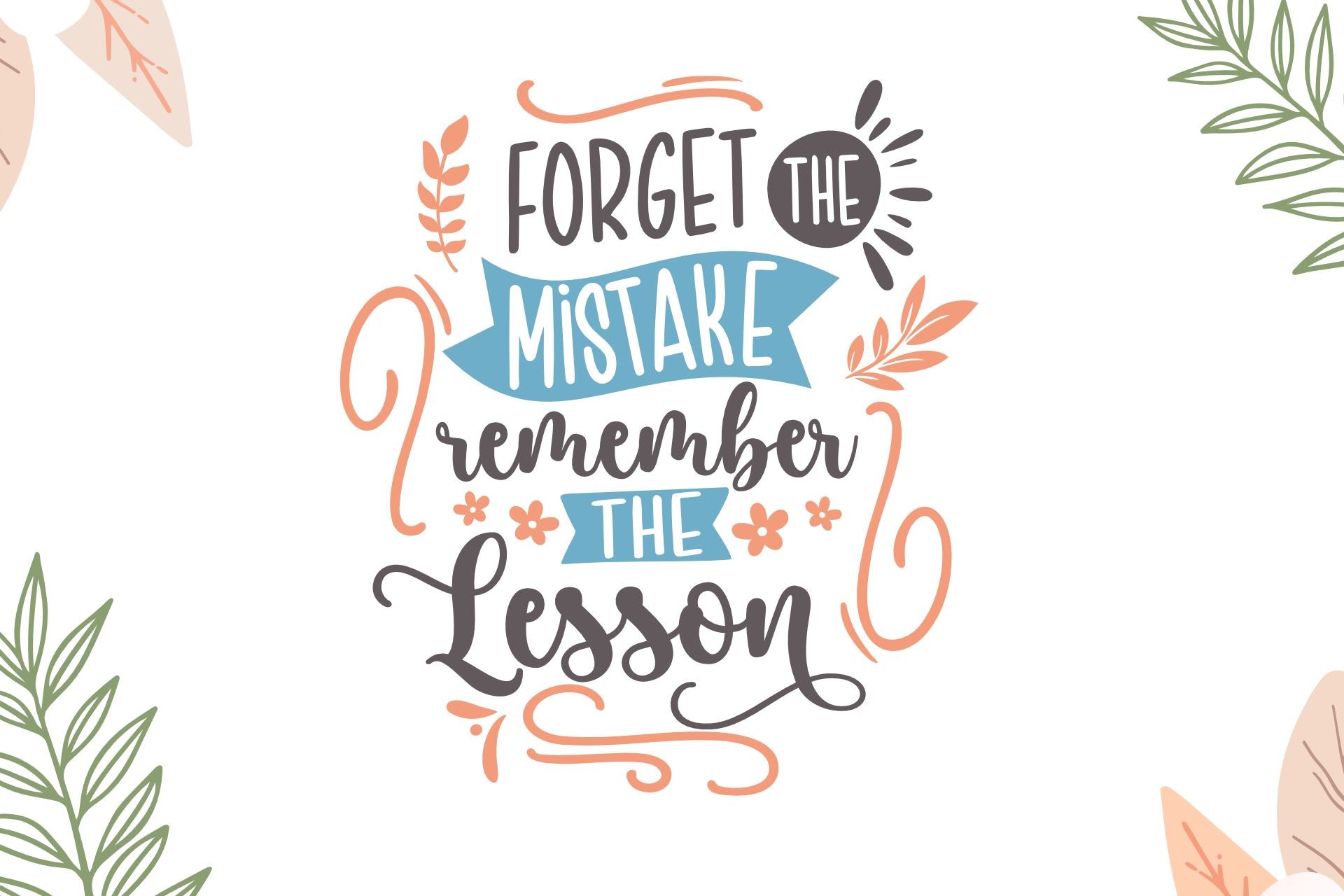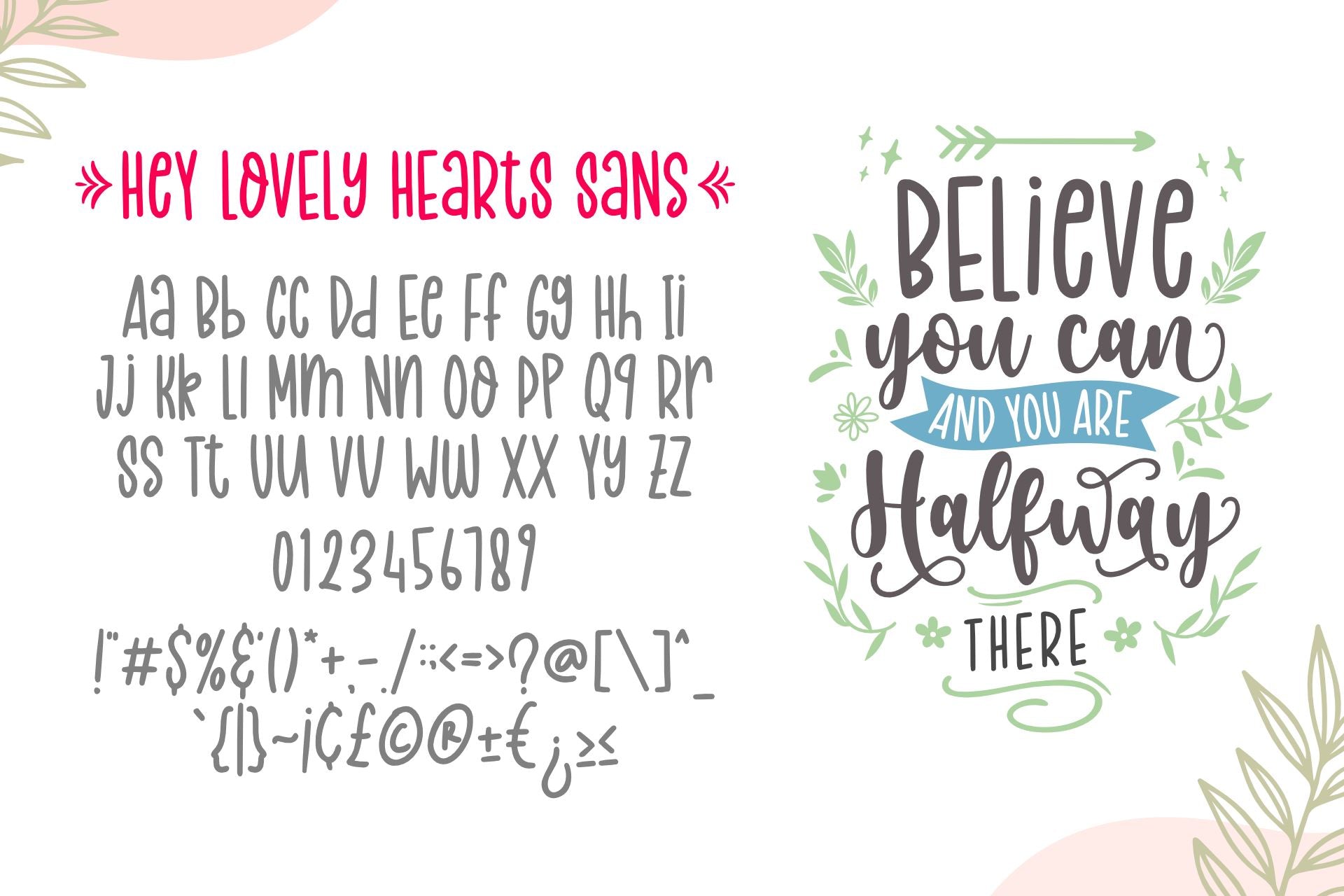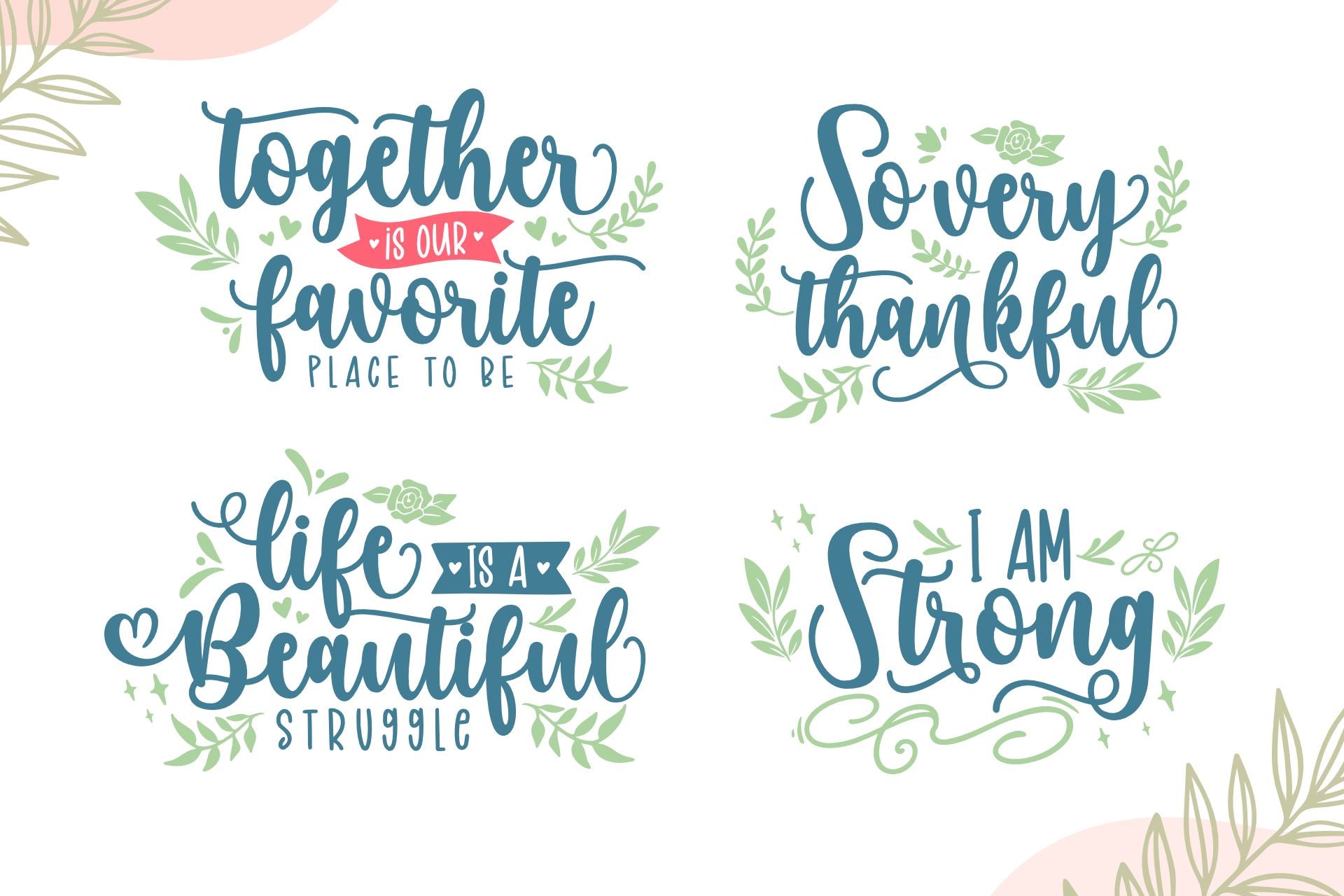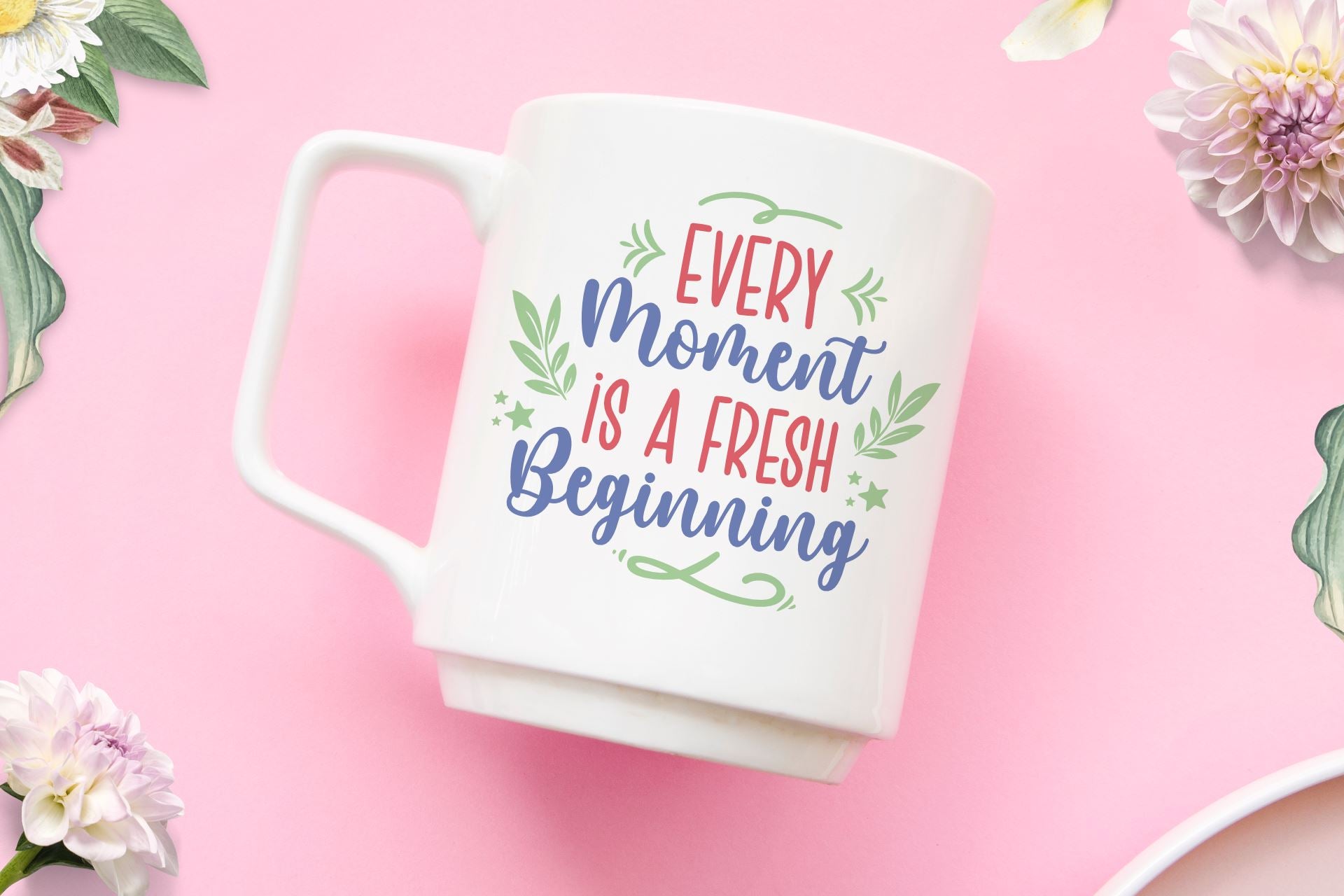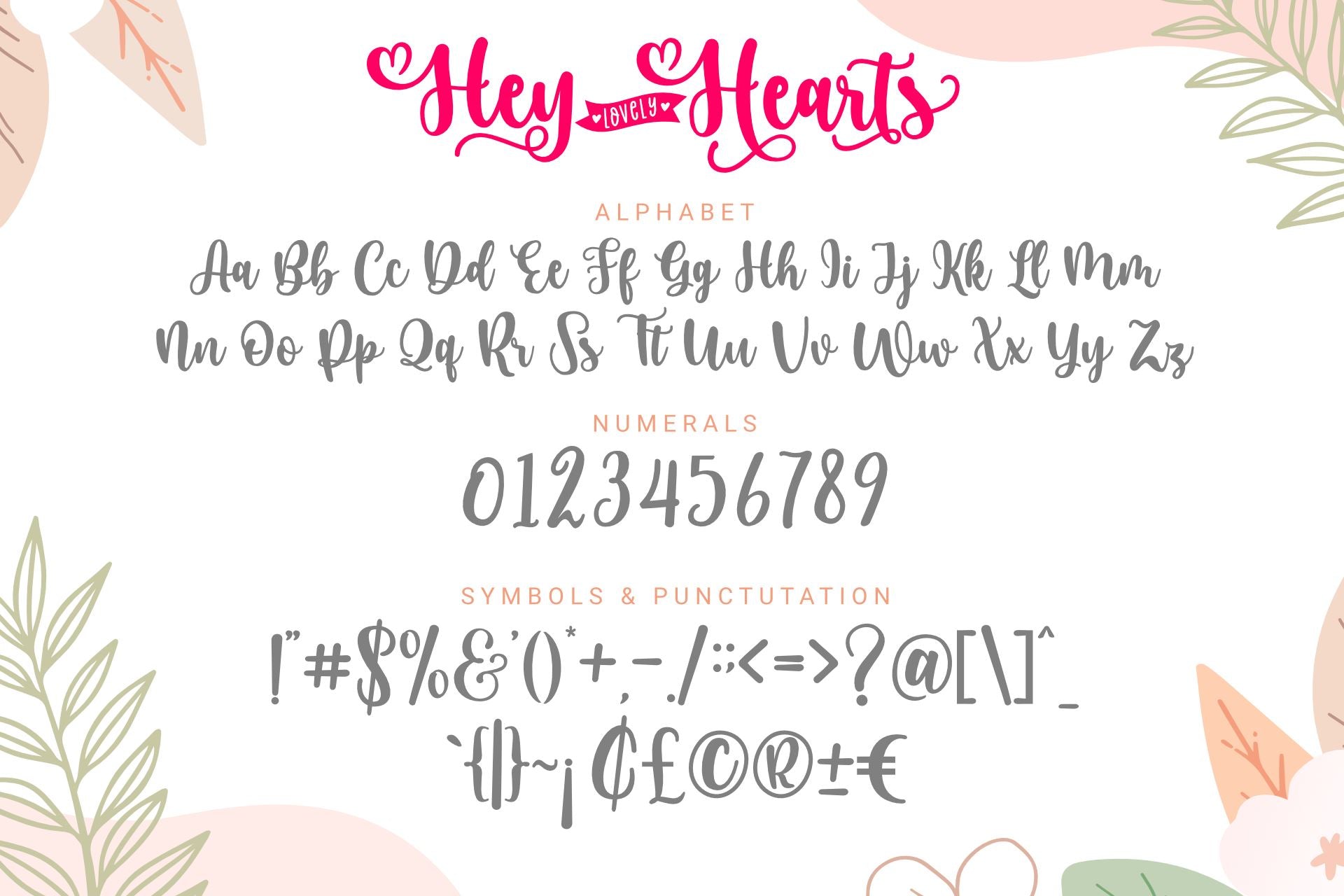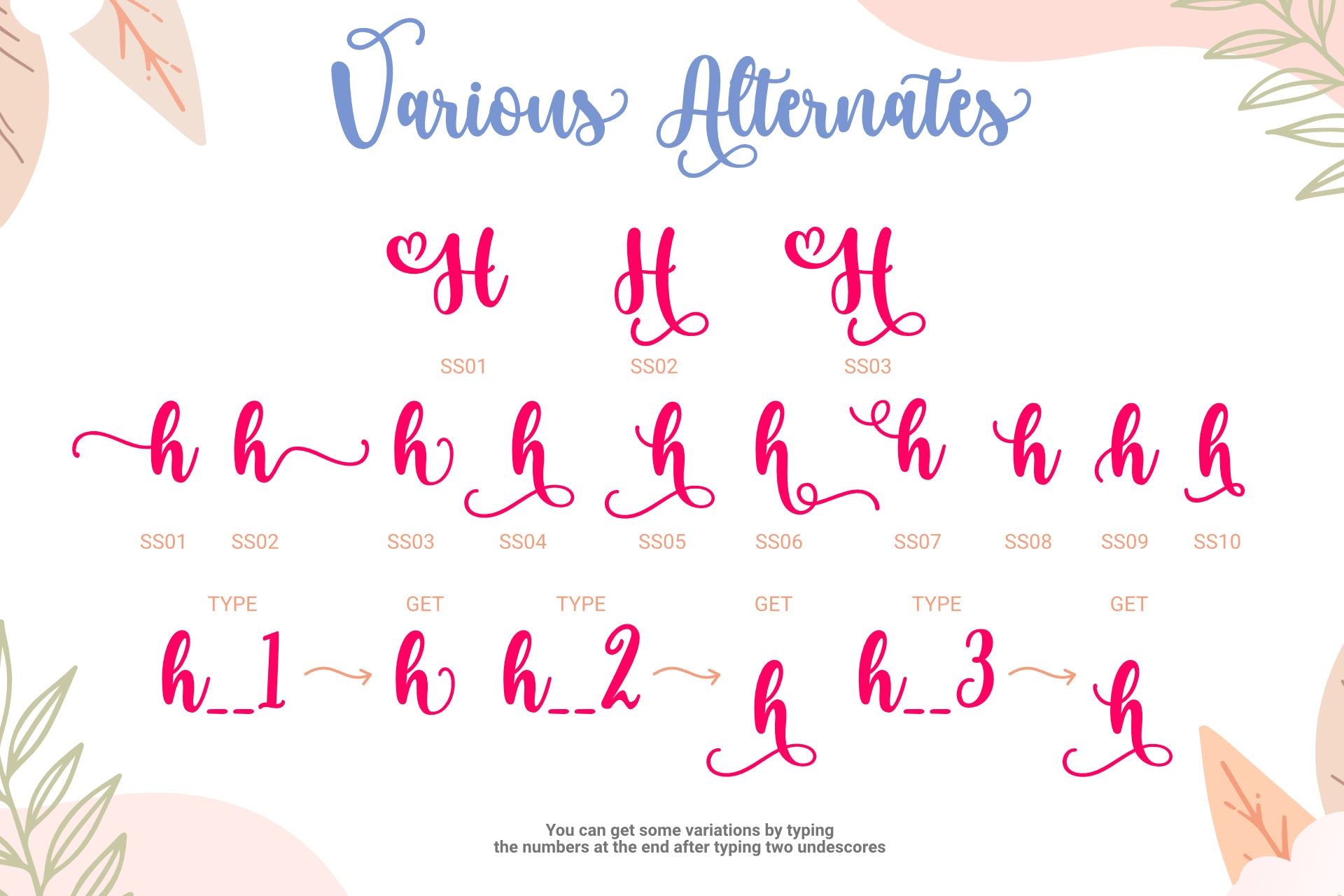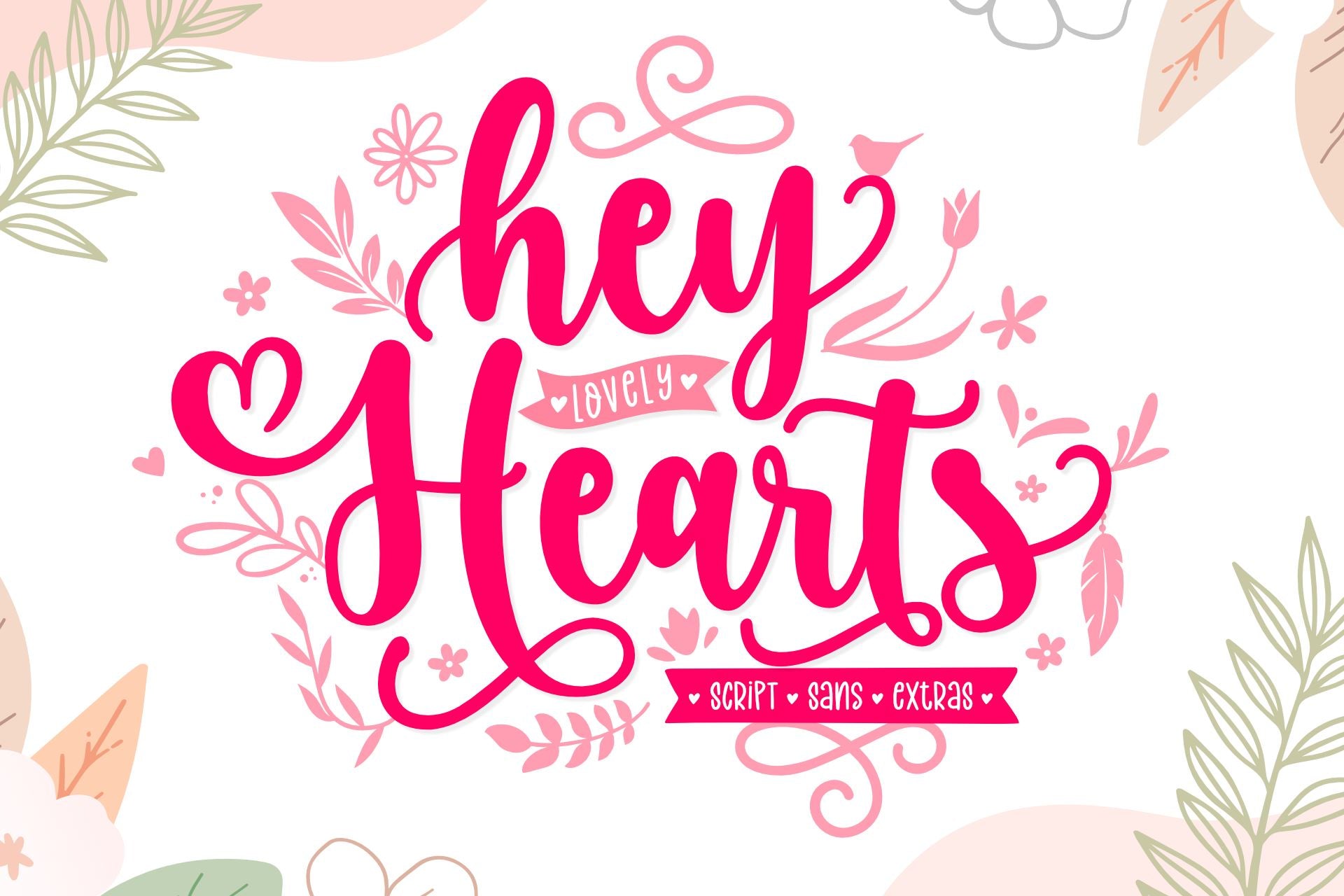
Hey Lovely Hearts
About Hey Lovely Hearts
Hey Lovely Hearts is a sweet, all round and flexible duo (sans serif and handwritten). Warm, romantic and jolly, this font will turn each of your project ideas into real works of art. Have fun with this beautiful font and explore its endless variations.